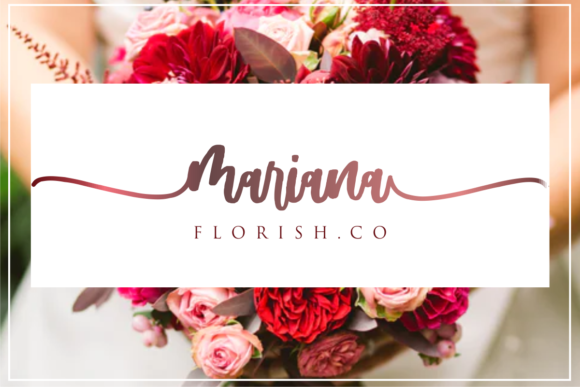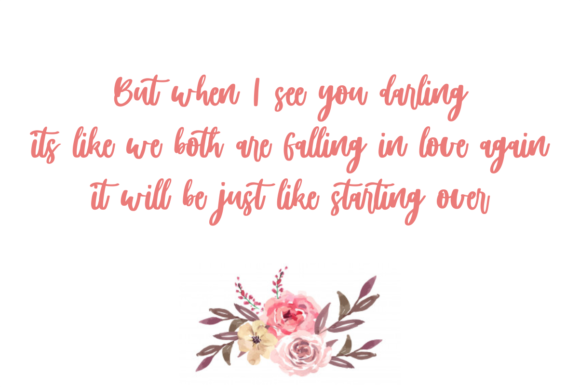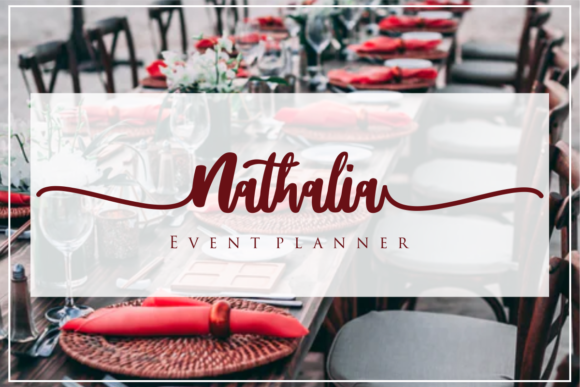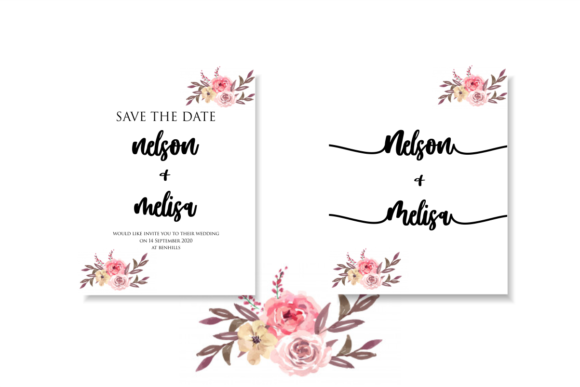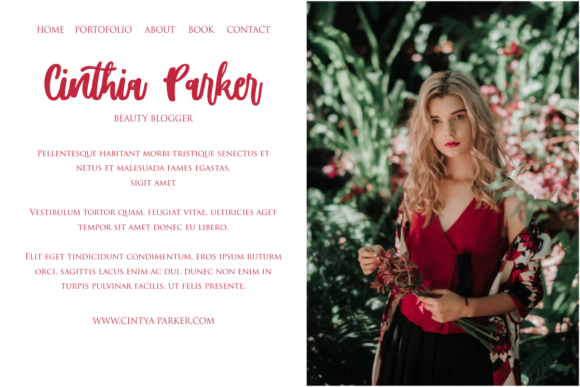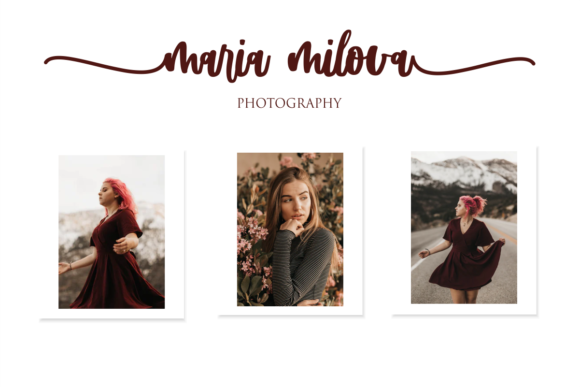
Introducing Amartha Font: Elevate Your Designs with Modern Calligraphy
In the world of typography, calligraphy scripts continue to captivate designers and crafters with their elegance and sophistication. Among the numerous fonts available, Amartha Font stands out as a modern calligraphy script that embodies the perfect blend of style, creativity, and versatility. In this article, we’ll delve into the features, benefits, and uses of Amartha Font, and explore how it can elevate your designs to new heights.
What is Amartha Font?
Amartha Font is a modern calligraphy script font that boasts a unique and stunning appearance. Designed with a varying baseline, smooth lines, gorgeous glyphs, and breathtaking alternates, Amartha is the perfect choice for designers seeking to create original and outstanding designs. Whether you’re working on a branding project, wedding invitation, or social media graphics, Amartha Font is sure to make your designs shine.
Key Features of Amartha Font
- Varying Baseline: Amartha Font features a dynamic baseline that adds a touch of elegance and sophistication to your designs.
- Smooth Lines: The font’s smooth lines and curves create a seamless and fluid appearance, perfect for creating beautiful calligraphy pieces.
- Gorgeous Glyphs: Amartha Font comes with a range of stunning glyphs, including swashes, flourishes, and ligatures, that can be used to add a personal touch to your designs.
- Stunning Alternates: The font offers a variety of alternate characters, allowing you to experiment with different styles and create unique designs.
Benefits of Using Amartha Font
So, why choose Amartha Font for your design projects? Here are just a few benefits of using this amazing font:
- Unique and Original Designs: With Amartha Font, you can create designs that stand out from the crowd and showcase your creativity.
- Versatility: The font’s modern calligraphy style makes it suitable for a wide range of design projects, from wedding invitations to brand identities.
- Ease of Use: Amartha Font is easy to use and works seamlessly with popular design software, including Adobe Illustrator and Canva.
- Time-Saving: With Amartha Font’s extensive range of glyphs and alternates, you can save time and effort in creating custom designs.
Who Can Benefit from Amartha Font?
Amartha Font is perfect for:
- Graphic Designers: Looking to add a touch of elegance and sophistication to their designs.
- Wedding Planners: Seeking to create beautiful and unique wedding invitations and stationery.
- Social Media Influencers: Wanting to elevate their social media graphics and create a strong brand identity.
- Crafters: Interested in creating handmade cards, gift tags, and other paper crafts.
Tips for Using Amartha Font
To get the most out of Amartha Font, here are some tips to keep in mind:
- Experiment with Different Styles: Don’t be afraid to try out different alternates and glyphs to create a unique look.
- Pair with Other Fonts: Combine Amartha Font with other fonts to create a striking contrast and add visual interest.
- Use on Different Backgrounds: Experiment with different background colors and textures to create a range of effects.
| Font Name | Amartha Font |
| Author | Fikryal Studio |
In conclusion, Amartha Font is a modern calligraphy script font that offers a world of creative possibilities for designers and crafters. With its varying baseline, smooth lines, gorgeous glyphs, and stunning alternates, Amartha is the perfect choice for creating original and outstanding designs. Whether you’re a seasoned designer or just starting out, Amartha Font is sure to inspire and elevate your designs to new heights.